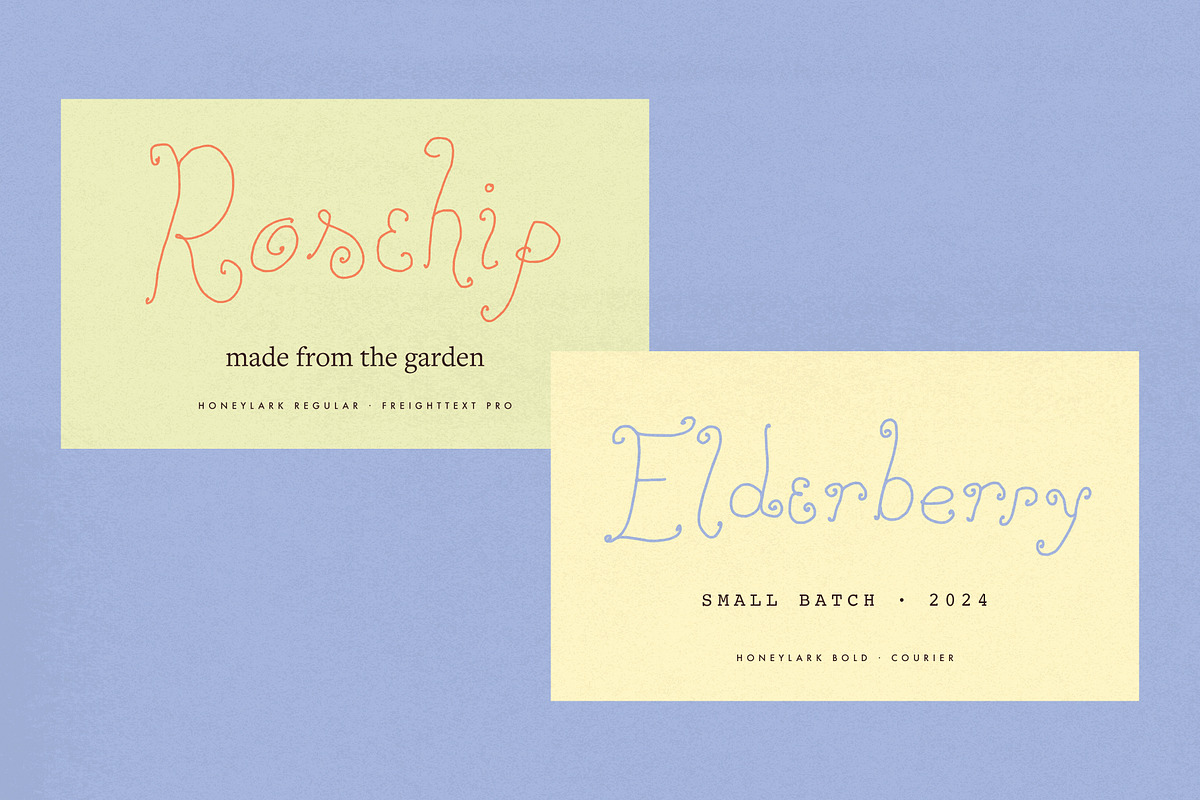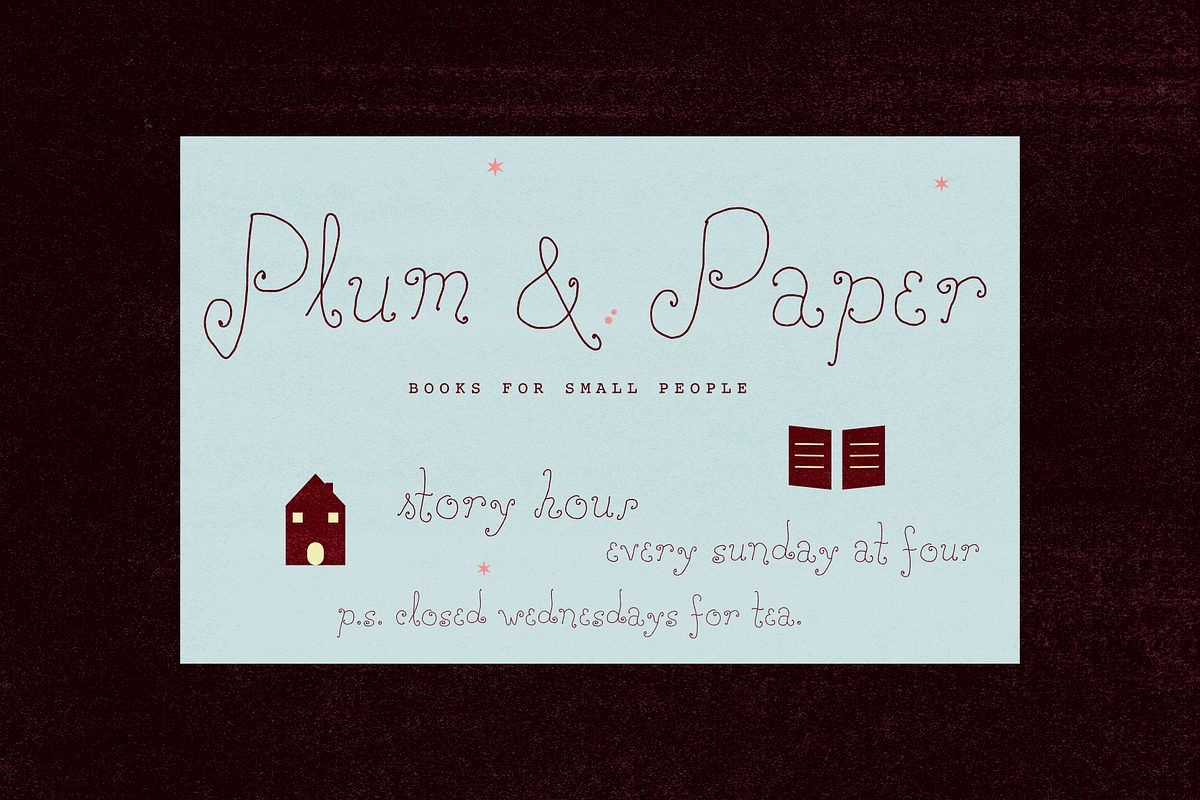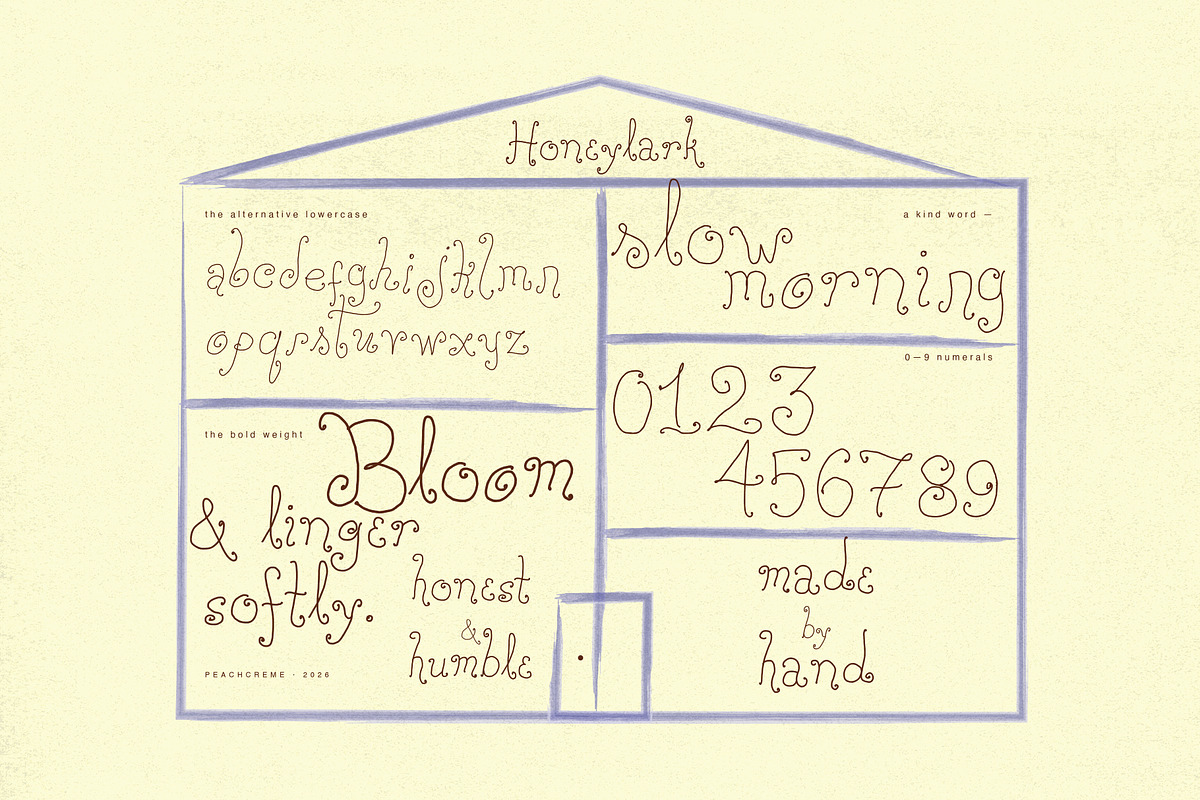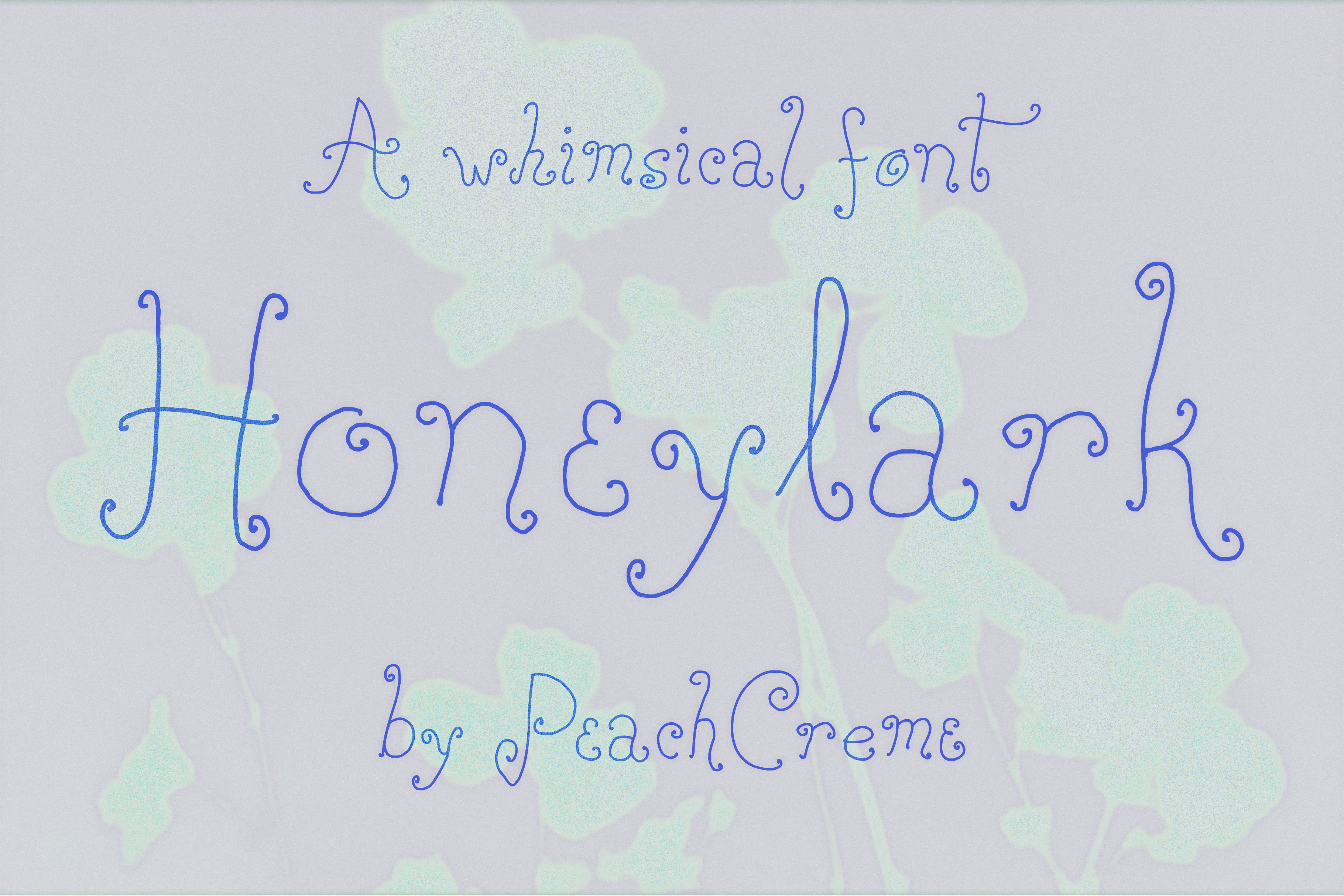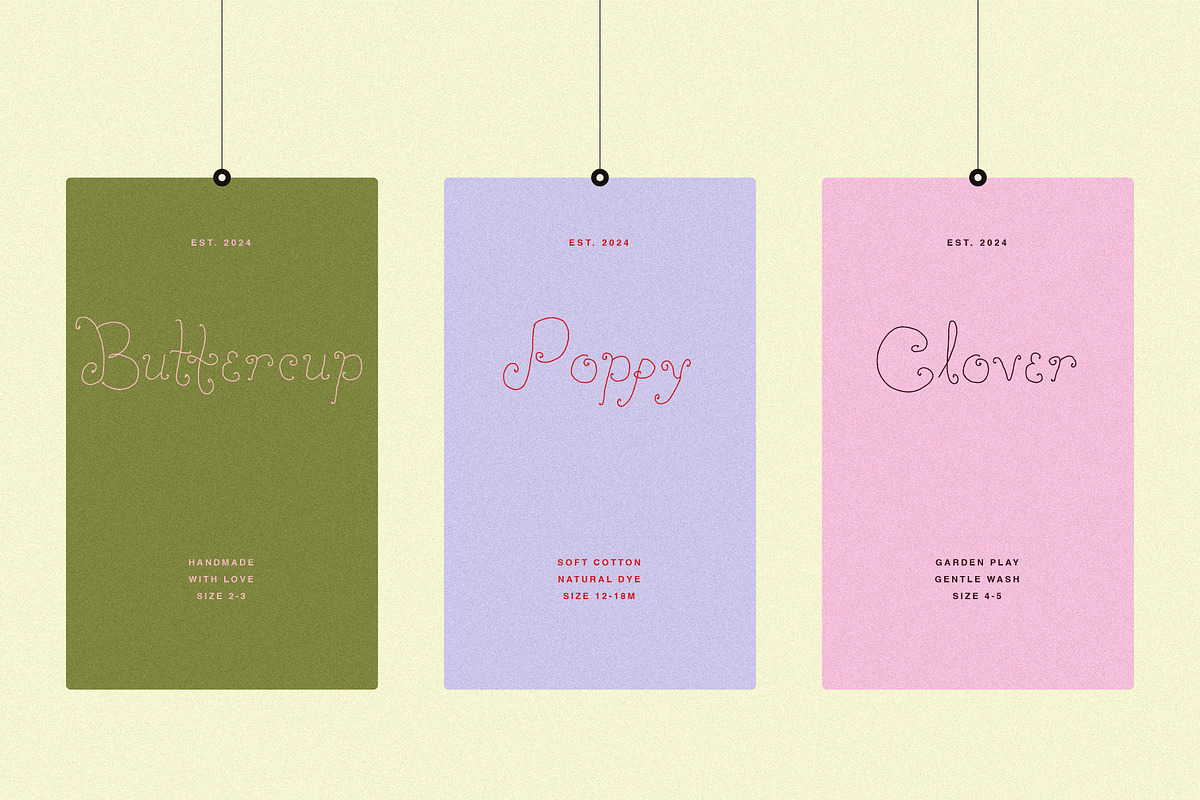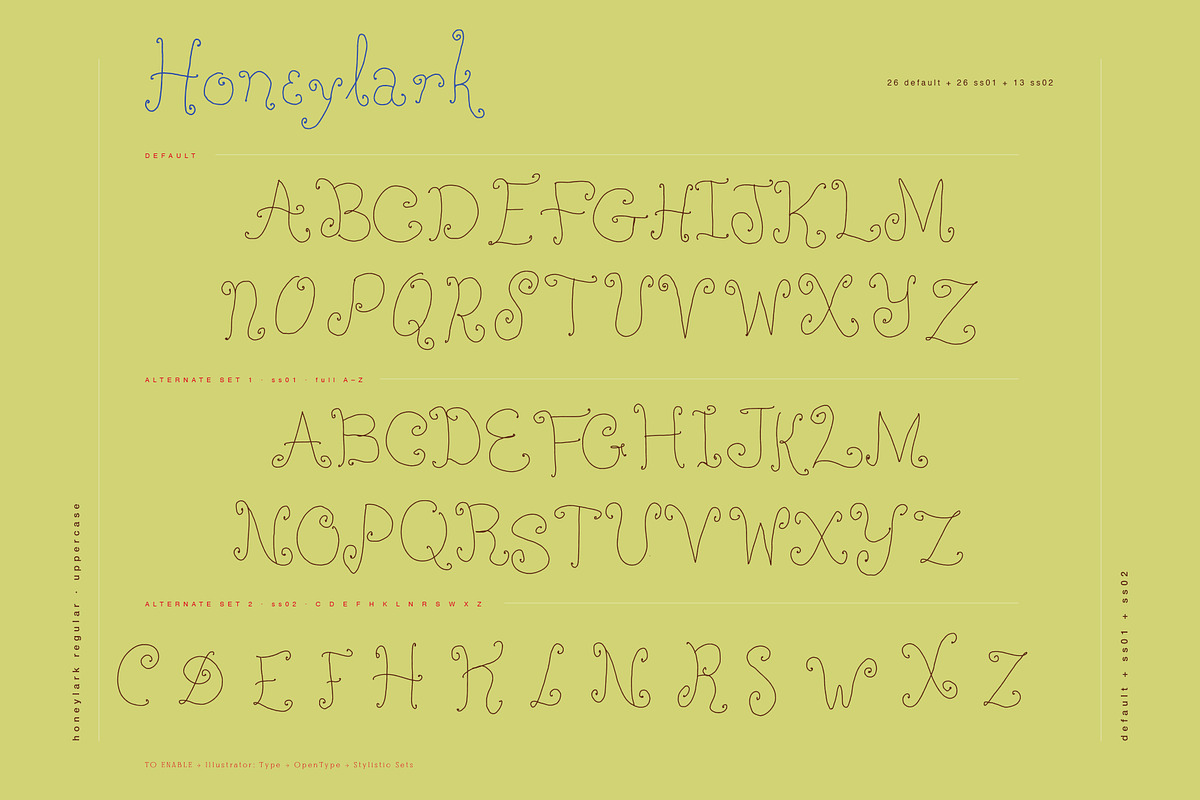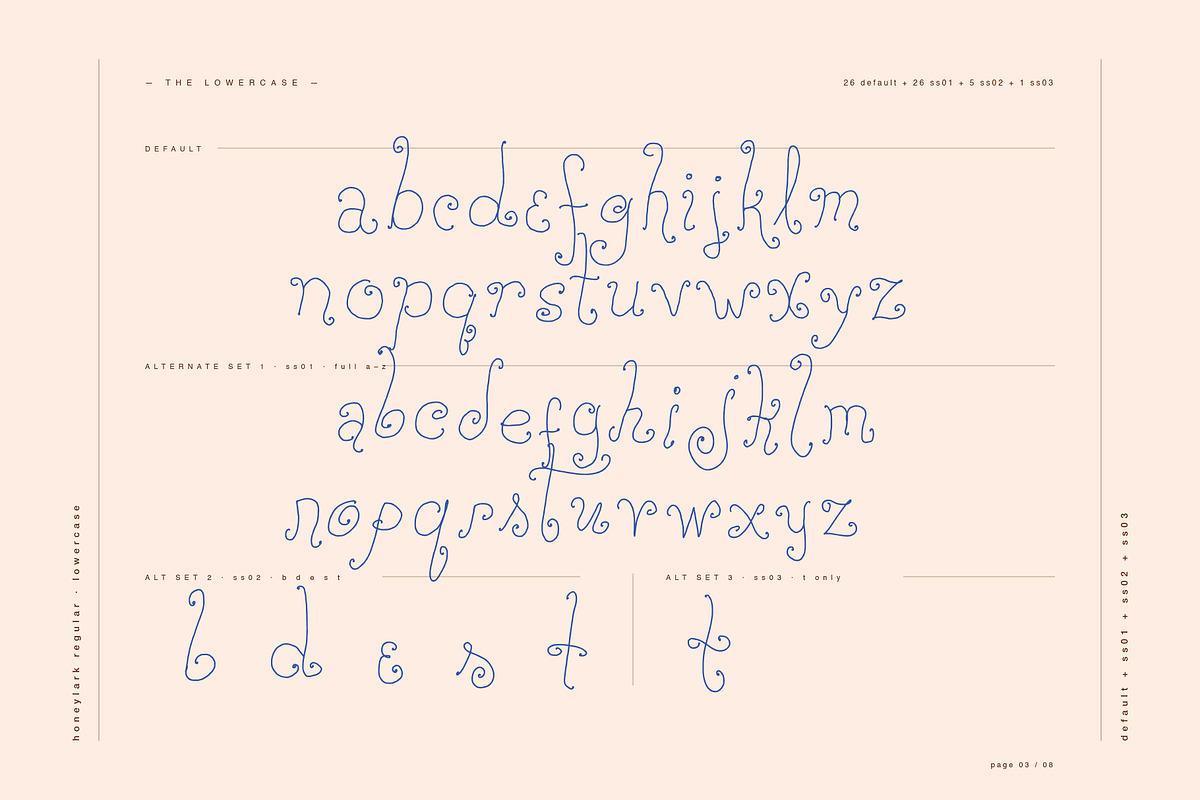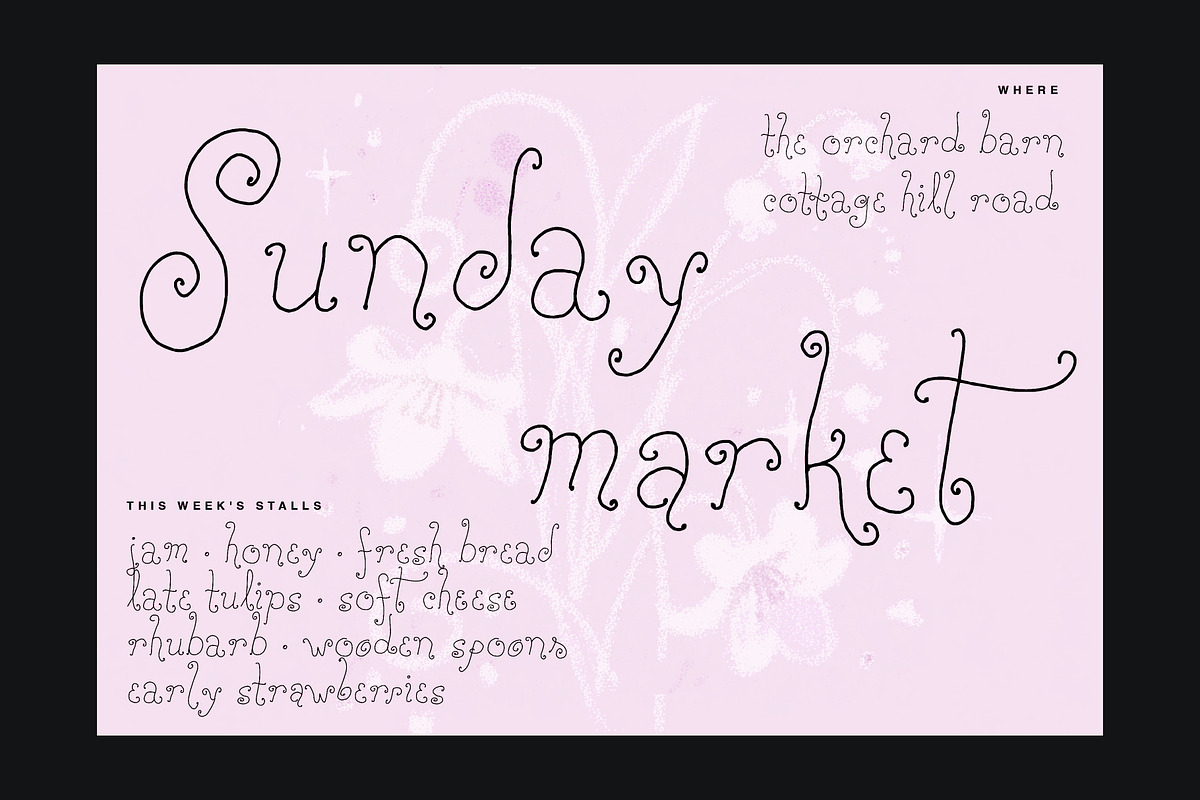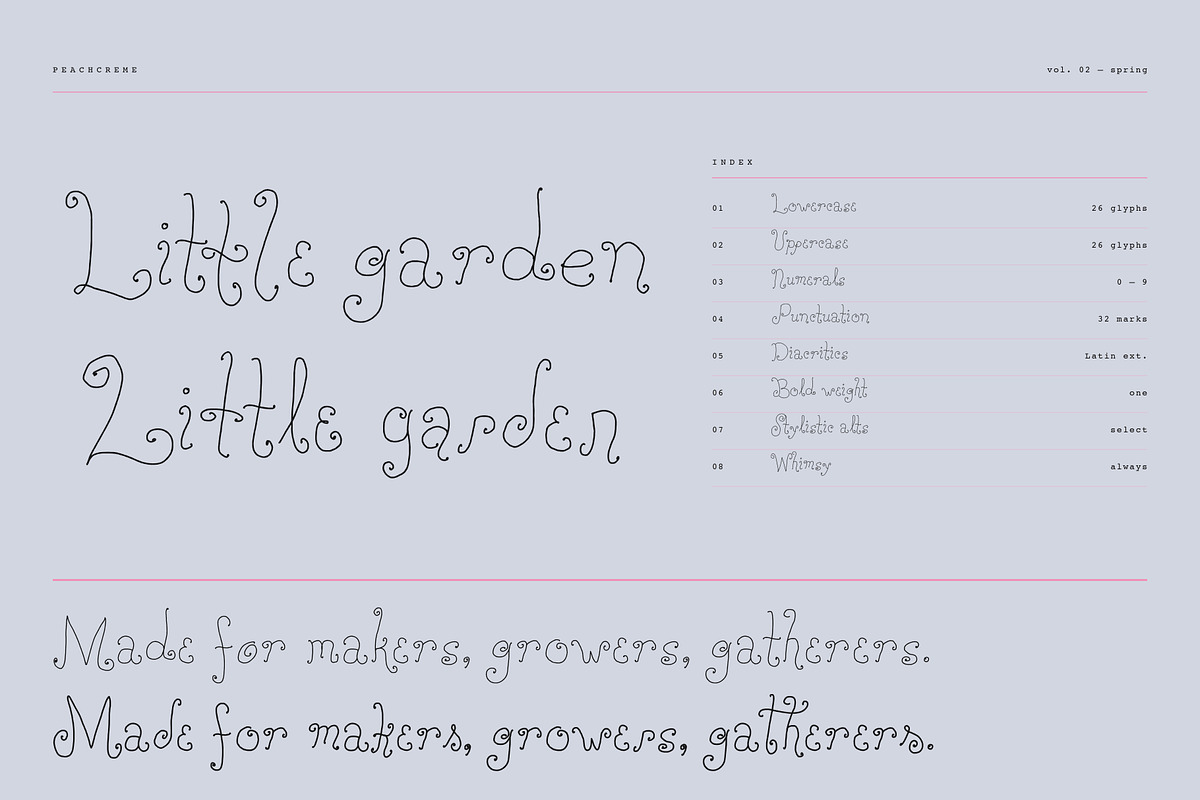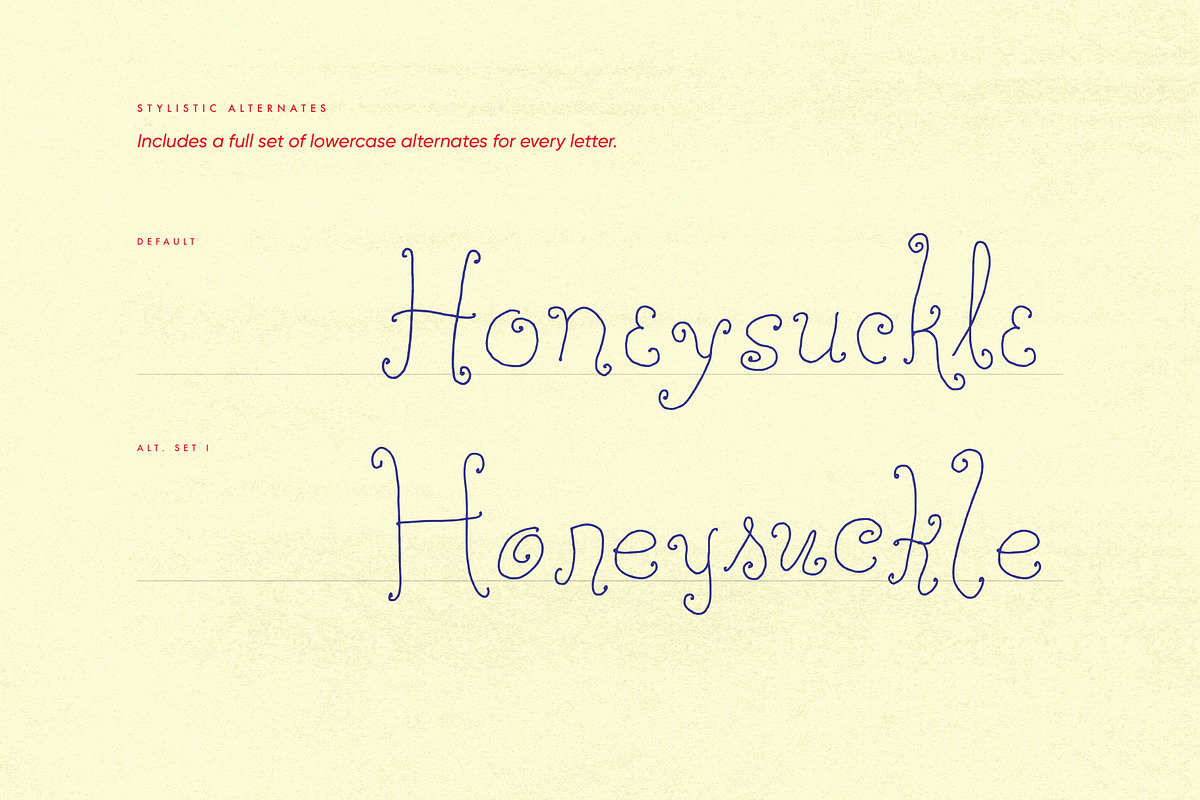
Honeylark Whimsical Curly Font
Honeylark is a playful, hand-lettered typeface with organic loops and gentle curves. Every uppercase and lowercase letter includes at least one stylistic alternate, giving you flexibility to create truly unique designs.